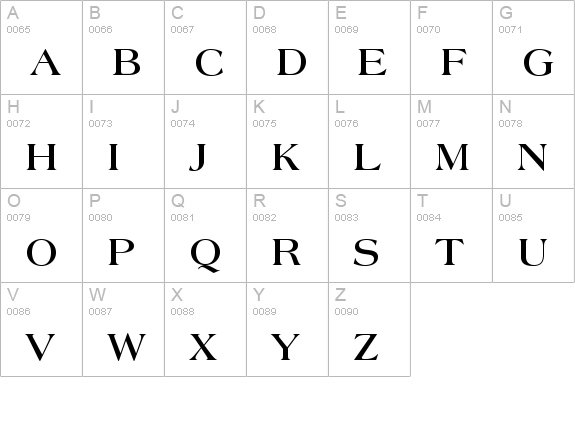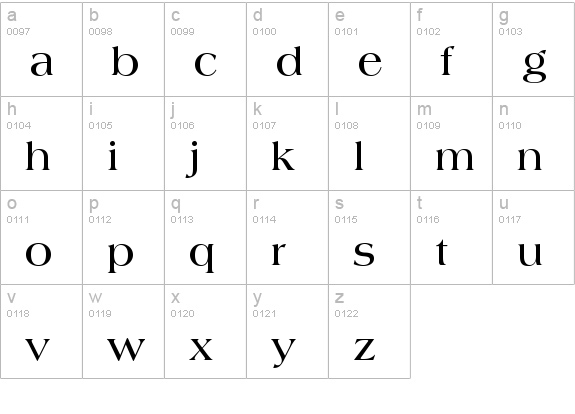
Americana Bold is a strong, high-contrast variant in the Americana typeface family \xE2\x80\x94 well suited to headlines, attention-grabbing titles, and strong calls-to-action.
Americana Bold font is a timeless and versatile typeface that exudes a sense of classic Americana style. With its bold and strong letterforms, this font is perfect for creating eye-catching headlines, posters, and branding materials. The clean and sturdy design of Americana Bold makes it suitable for a wide range of design projects, from rustic and vintage to modern and contemporary. The best part is that Americana Bold font is completely free to download at FontsMarket.com. Whether you're a designer looking to add a touch of Americana flair to your projects or just someone who appreciates high-quality typography, Americana Bold is a must-have in your font collection. Don't miss out on this fantastic opportunity to enhance your designs with this striking and impactful typeface. Download Americana Bold today and start creating beautiful and memorable designs!